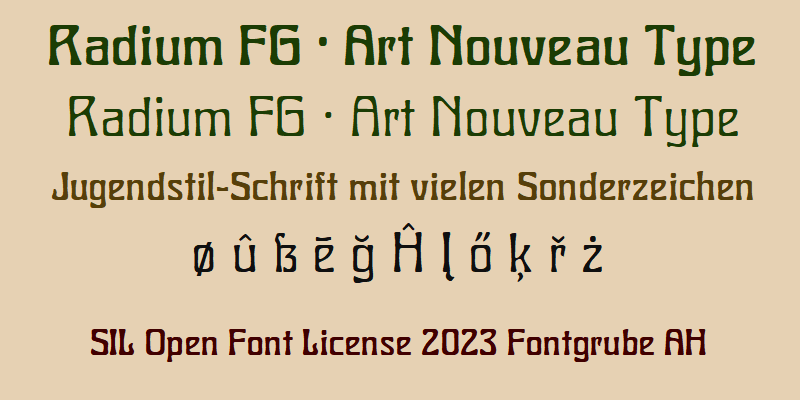
�Radium FG� is a new digitisation of the Art Nouveau hot-metal font �Radium� published in 1905 by the German typefoundry Ludwig & Mayer. It became popular in the 1970s when Hubertus Carl �Hace� Frey reworked the bold weight of Radius under the new name �Charleston�. It was used chiefly as a display typeface on musical album covers. Radium FG has, like the original �Radium�, both a regular and a bold weight. I added latin character sets for most Western and Eastern European languages. It is available as a free font under the SIL Open Font License with the reserved name �Radium�. For details see https://scripts.sil.org/OFL. The font is free for both personal and commercial use, but you can make donations via the paypal link of the font on dafont.com. |